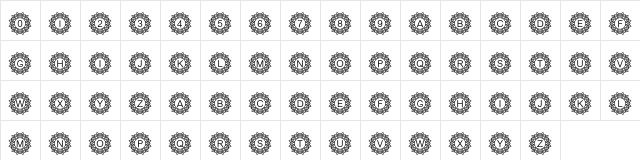
Mandala_Mono Regular
Design Context for Mandala_Mono Typeface
Mandala_Mono uses fixed-width spacing throughout, giving it the structured, systematic character associated with coding environments and technical documentation.
Pro Tip: Use Mandala_Mono with slightly increased line-height for extended reading — fixed-width spacing can feel dense in longer passages without extra breathing room.